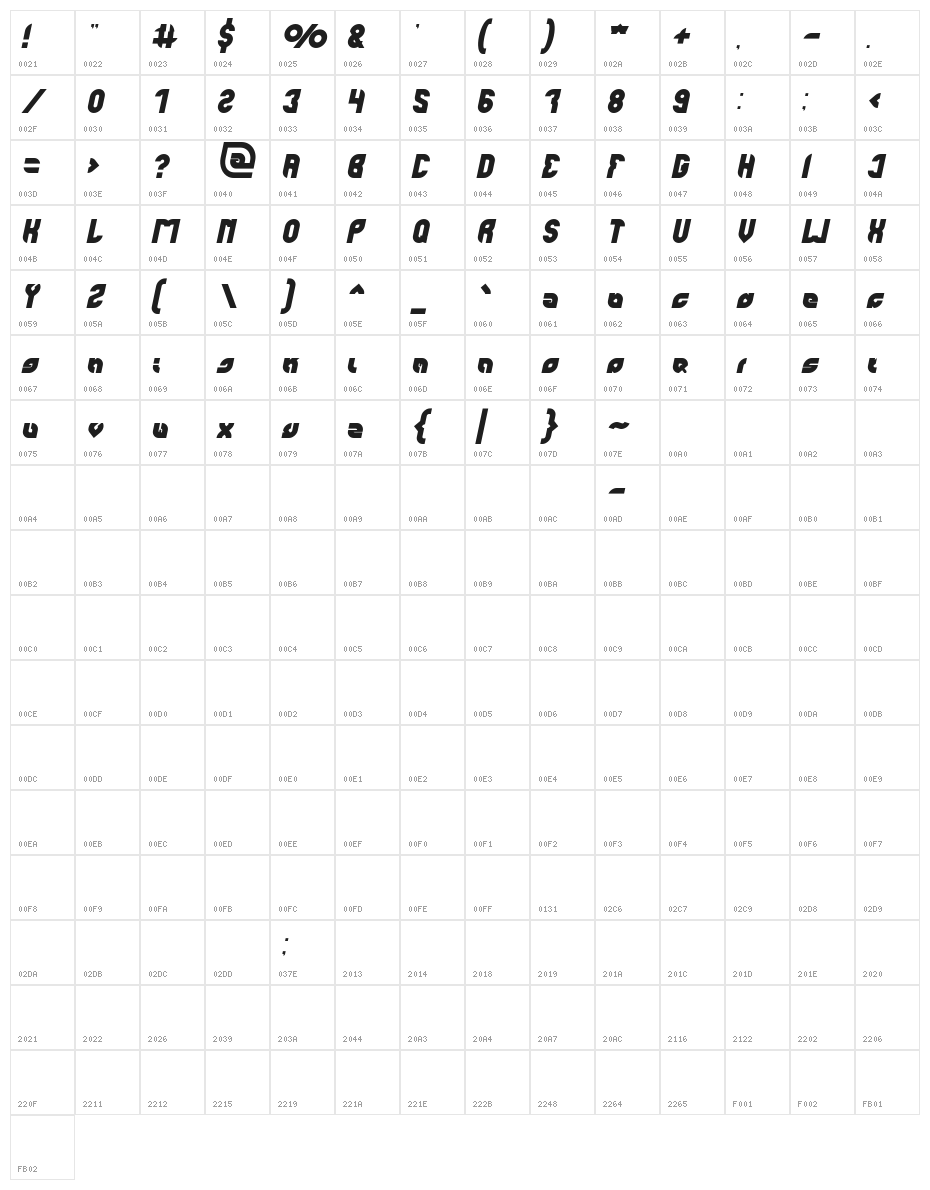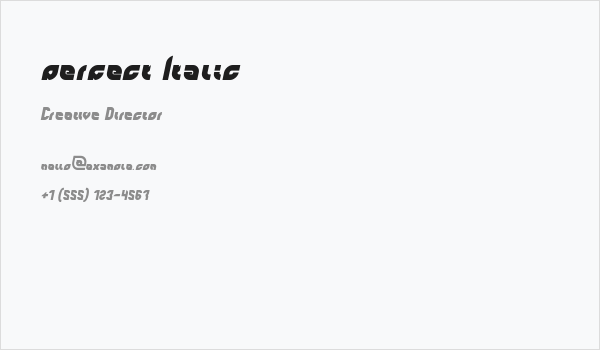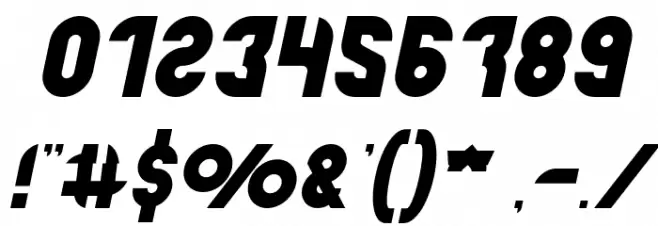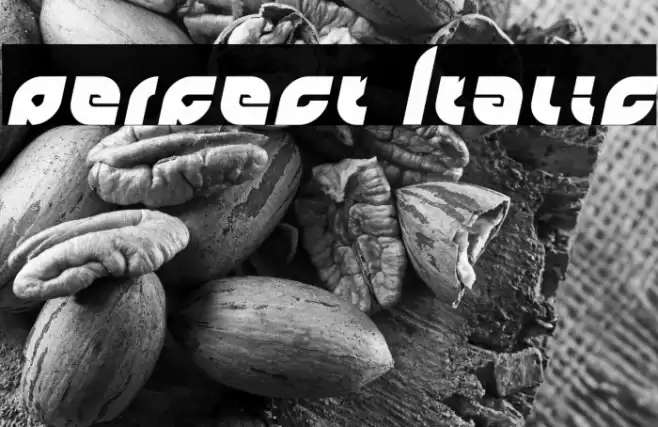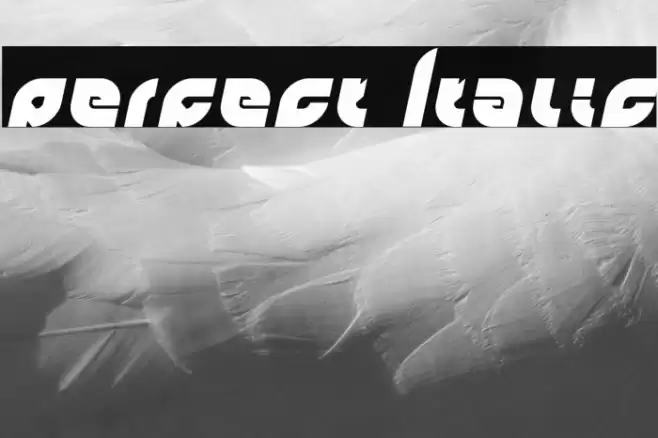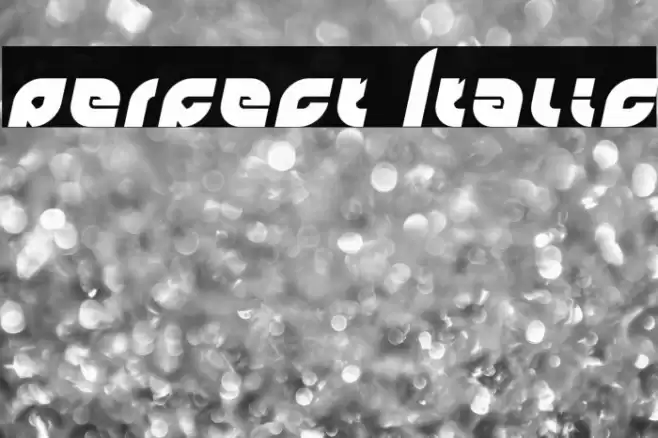
perfect Italic Font
perfect Italic Description
This font features a bold and dynamic style with a distinct italic slant, giving it a sense of motion and energy. The characters are thick and robust, with angular cuts and sharp edges that create a strong visual impact. The uppercase and lowercase letters maintain a consistent style, with the lowercase letters mirroring the boldness of the uppercase. The numbers and special characters are designed to match the overall aesthetic, ensuring uniformity across all glyphs. This font's unique style makes it stand out, suitable for projects that require a modern and edgy look.